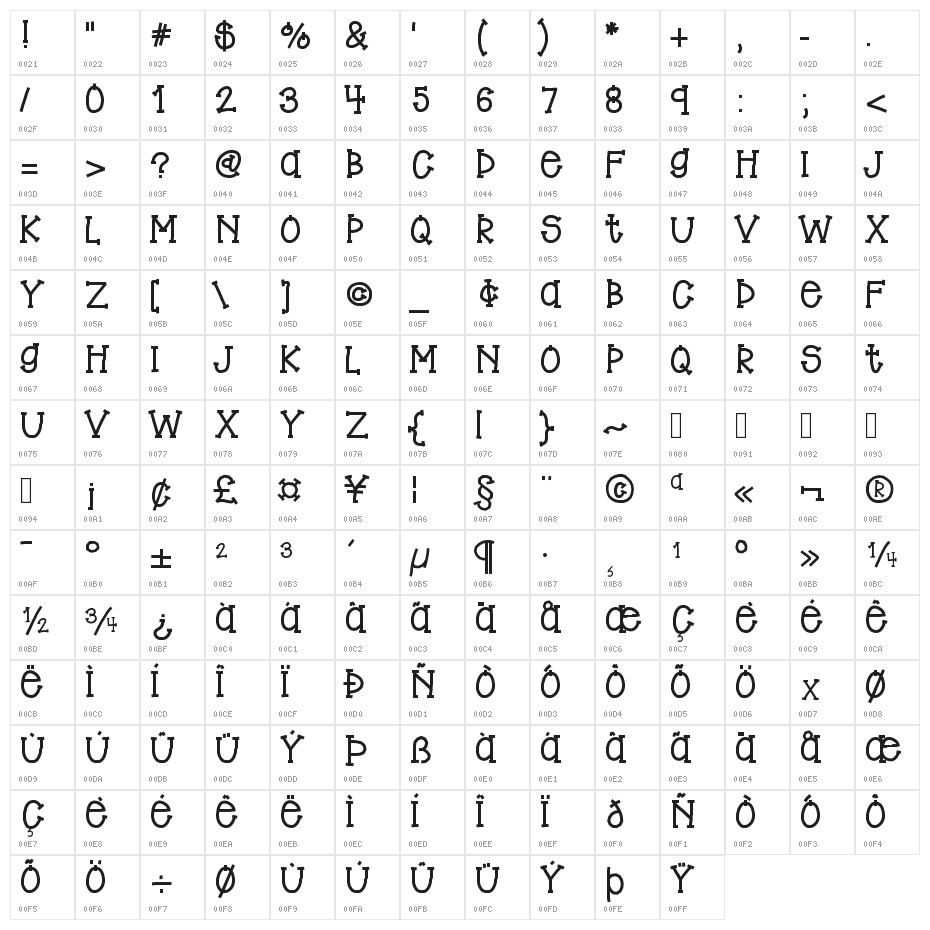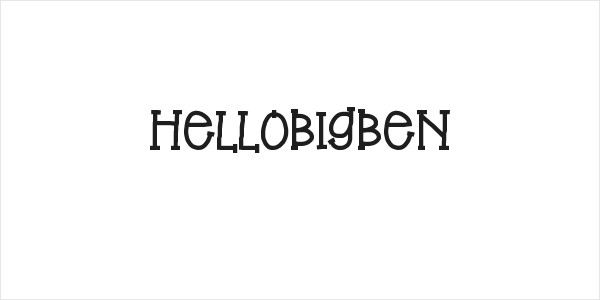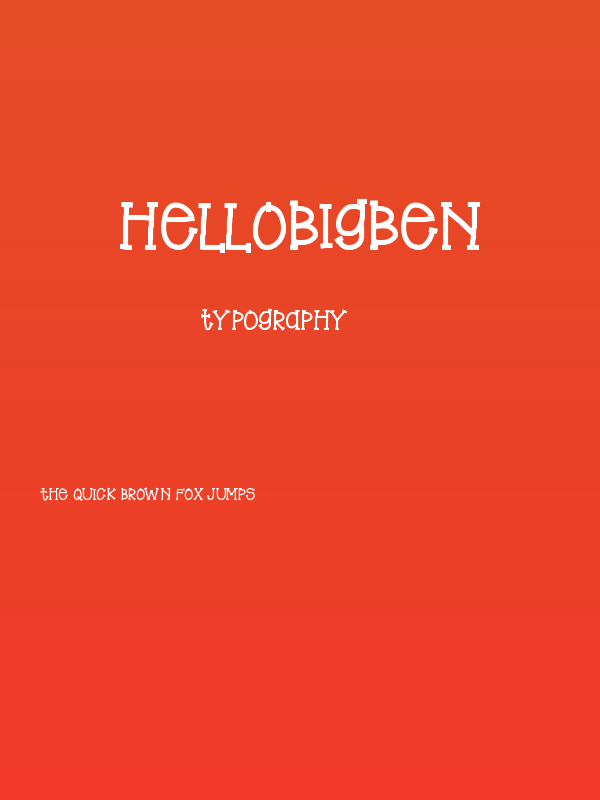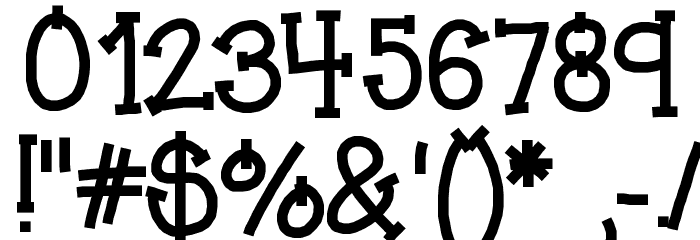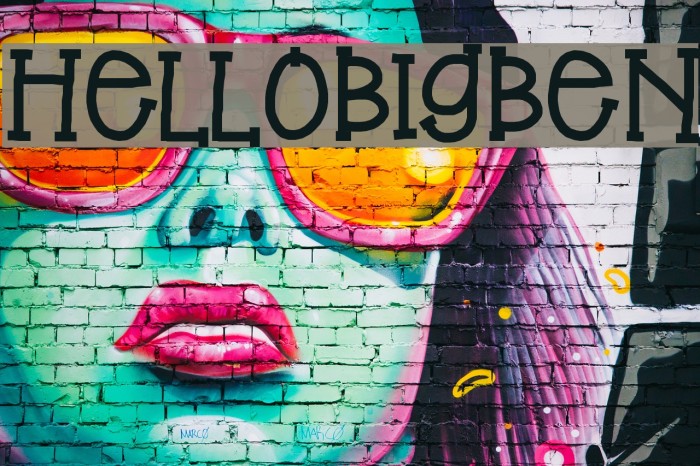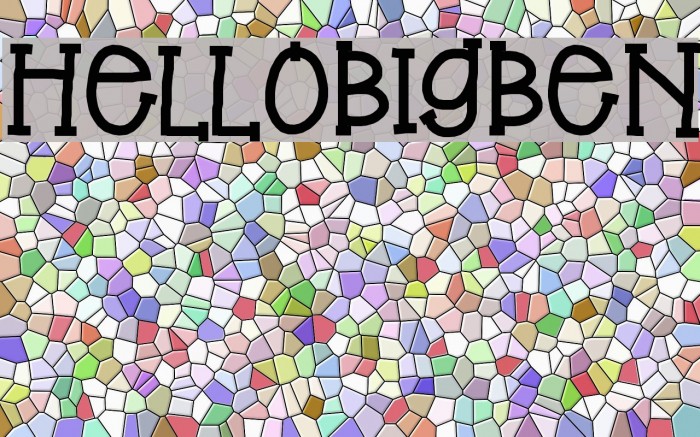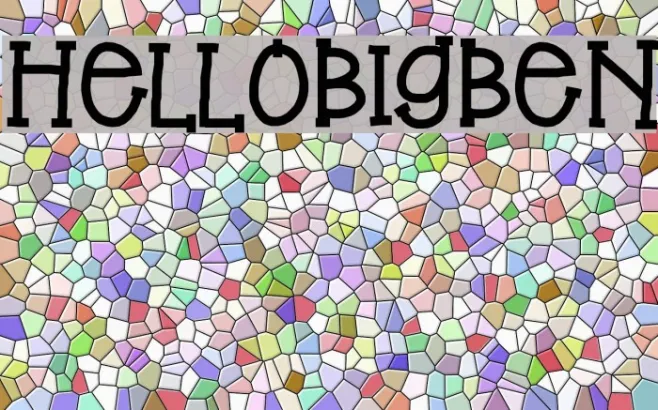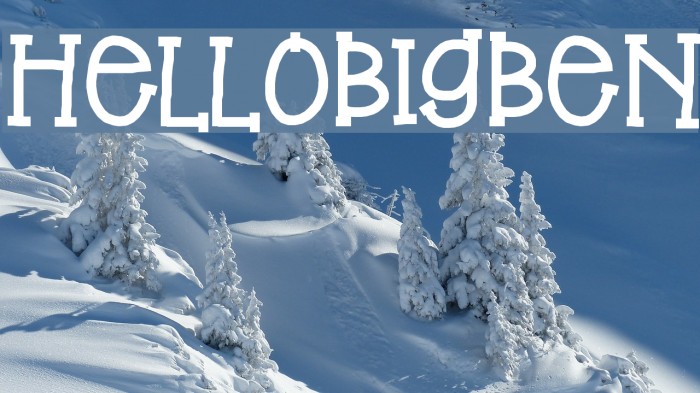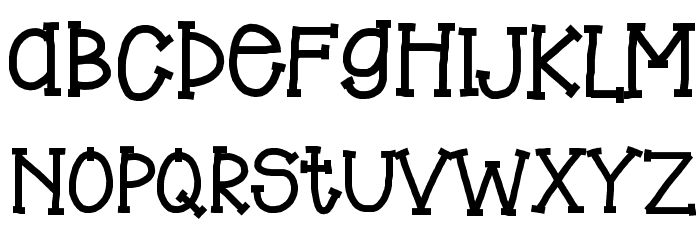
HelloBigBen Font
HelloBigBen Description
This font features a playful and whimsical design with a distinctive, hand-drawn appearance. The characters have a unique, quirky style with uneven strokes and a slightly irregular baseline, giving it a casual and informal feel. The uppercase and lowercase letters are bold and rounded, with exaggerated serifs that add to its charm. The numbers and special characters maintain the same playful aesthetic, making it suitable for creative and fun projects. The overall look is reminiscent of a cartoon or comic style, making it ideal for designs that require a touch of humor and lightheartedness.
| Overall Style | Whimsical, Playful, Cartoonish |
| Proposed Projects | Ideal for children's books, comic strips, playful branding, and party invitations. |